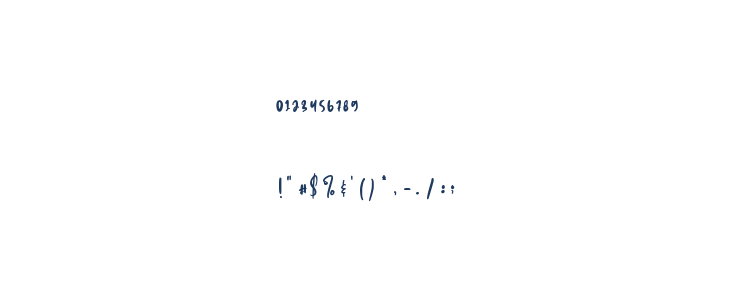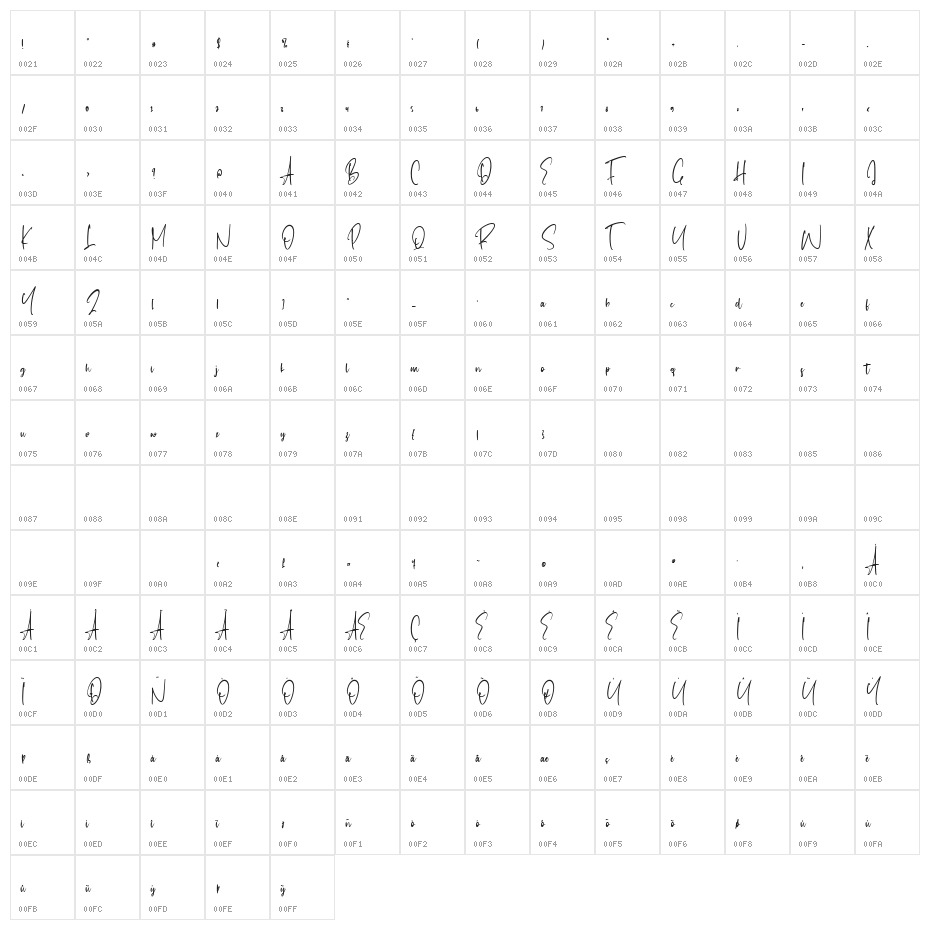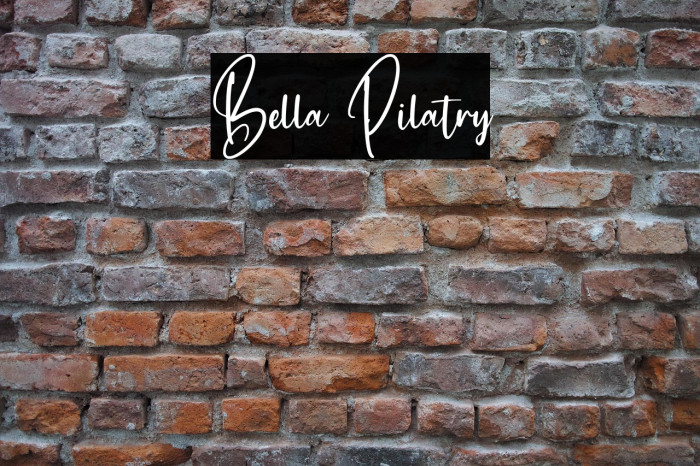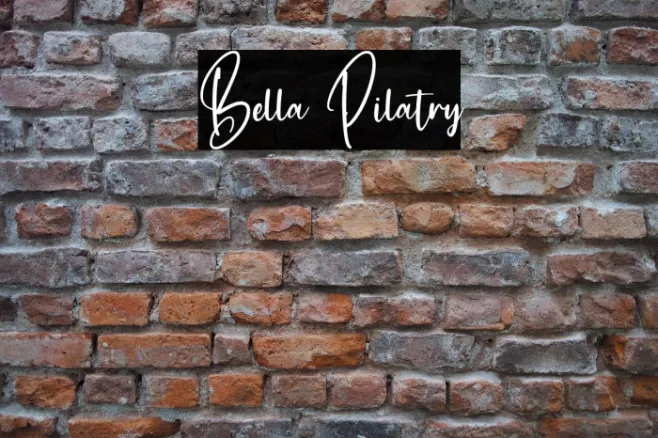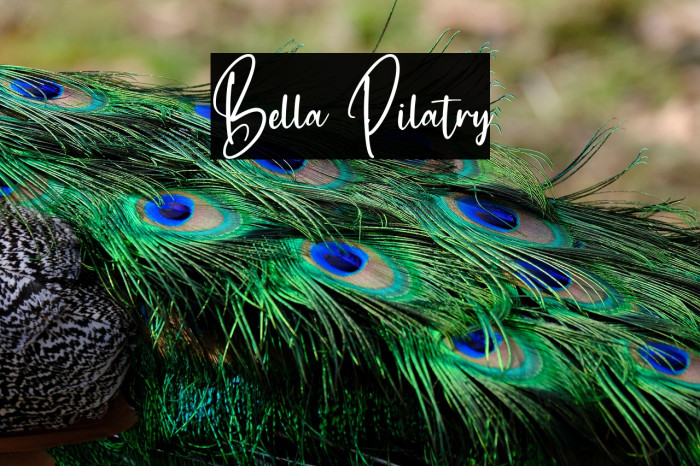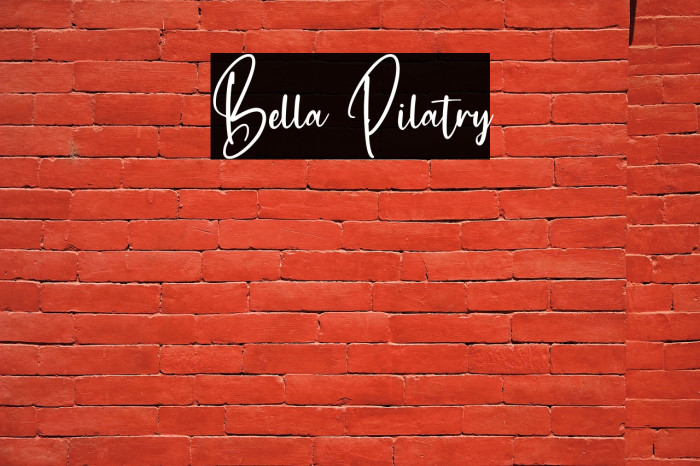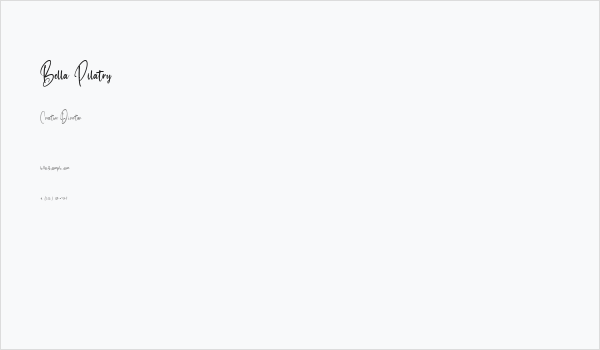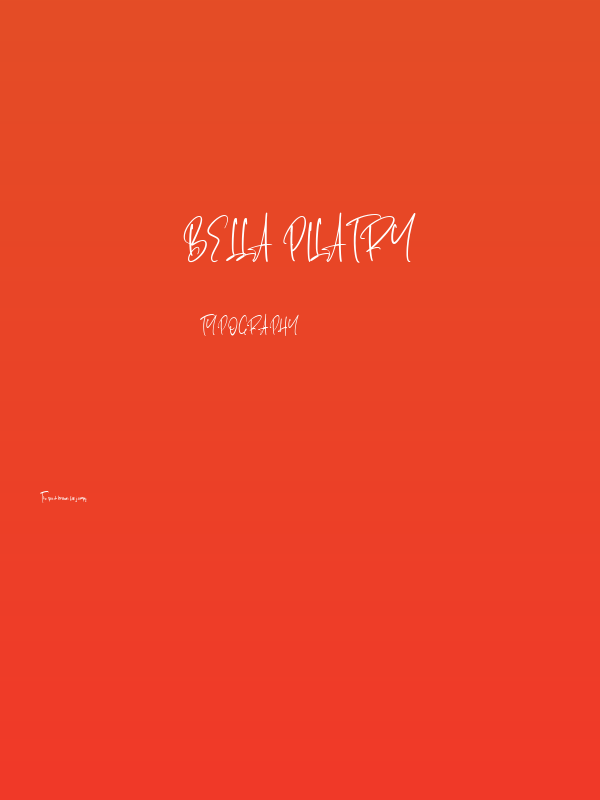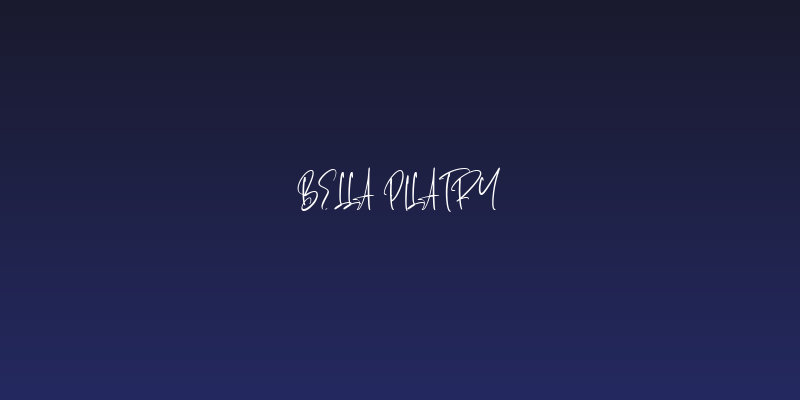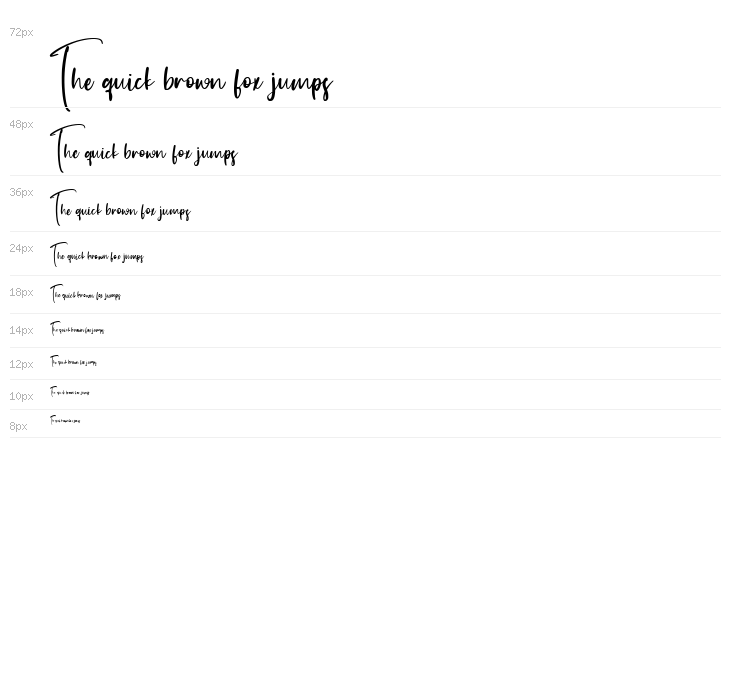
Bella Pilatry Font
Bella Pilatry Description
This font features a playful and artistic script style with a handwritten appearance. The uppercase letters are tall and slender, with a whimsical flair that adds a touch of elegance and creativity. The lowercase letters maintain a consistent flow, enhancing the font's organic and fluid nature. Numbers and special characters are designed to match the overall aesthetic, providing a cohesive look. The strokes vary in thickness, giving the font a dynamic and lively feel, while the character spacing is relatively tight, contributing to its energetic and spontaneous vibe.
| Proposed Projects | Ideal for creative projects such as invitations, greeting cards, branding, and social media graphics. |